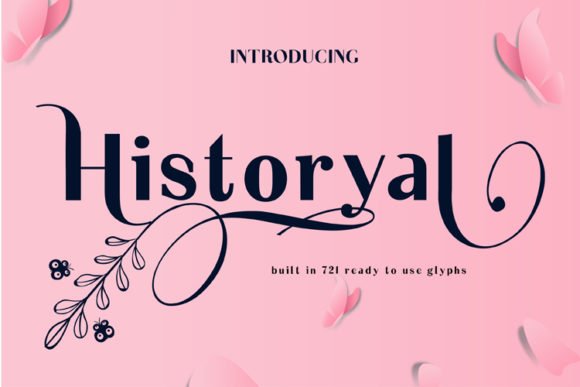
Unleash Your Creative Vision with Historyal Font
Do you ever find yourself staring at a blank canvas, wondering where to begin your next design project? The spark of creativity can be elusive, but what if the perfect font was just a click away? Meet Historyal Font, a serif font that expertly balances classic charm with modern minimalism. This versatile typeface is designed to help you bring your ideas to life, whether you’re creating stunning logos, eye-catching posters, or elegant wedding cards.
With its stunning ligatures and 700 alternates, Historyal Font offers endless possibilities for designers. Its unique blend of traditional and contemporary elements makes it the perfect choice for projects that require a touch of sophistication and elegance. Whether you’re a seasoned pro or just starting out, Historyal Font is a valuable addition to your design toolkit.
Key Features of Historyal Font
- Unique Characteristics: This font features a unique blend of historical and modern elements, with intricate details and subtle nuances that evoke a sense of nostalgia and sophistication.
Design Review: Historyal Font
First off, I want to say that Historyal Font has a unique charm to it. The design is inspired by ancient manuscripts, which is immediately apparent in the intricate details and textures ✨. The font is perfect for projects that need a vintage or antique feel. The variety of weights and styles available also make it versatile for different design applications.
Here are some specific things that I like about Historyal Font:
- ✨ Unique design inspired by ancient manuscripts
- ✨ Variety of weights and styles available
- ✨ Perfect for vintage or antique-themed projects
- ⚠️ Some characters may not be easily legible due to the intricate design
- ⚠️ May not be suitable for body text due to the ornate nature of the font
- ⚠️ Limited language support
Overall, Historyal Font is a great addition to any designer’s toolkit. While it may have some limitations, its unique design and versatility make it a great choice for projects that require a vintage or antique feel. With some careful planning and consideration, Historyal Font can be a powerful tool in your design arsenal.
Practical Application Guide for “Historyal Font”
“Historyal Font” is ideal for creating historical or vintage-themed designs. To get the most out of it, try pairing it with other distressed or serif fonts. Experiment with different font sizes and styles to achieve a unique look.